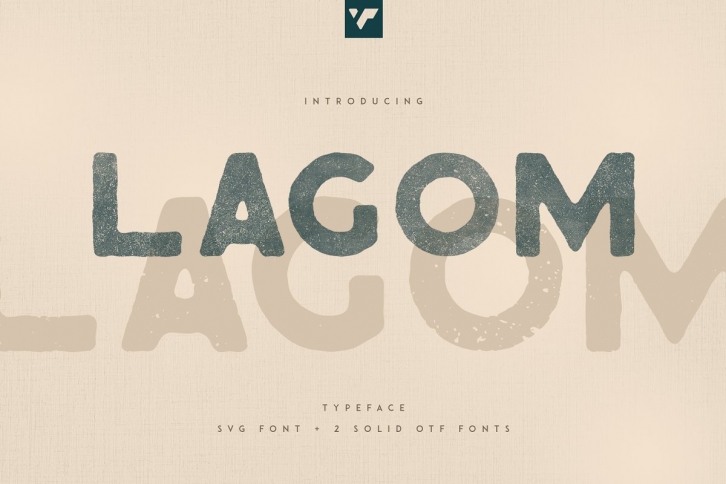
Introducing Lagom VP Typeface - Bitmap vsg font + 2 solid fonts
Lagom is perfect for branding projects, home-ware designs, product packaging, magazine headers - or simply as a stylish text overlay to any background image.